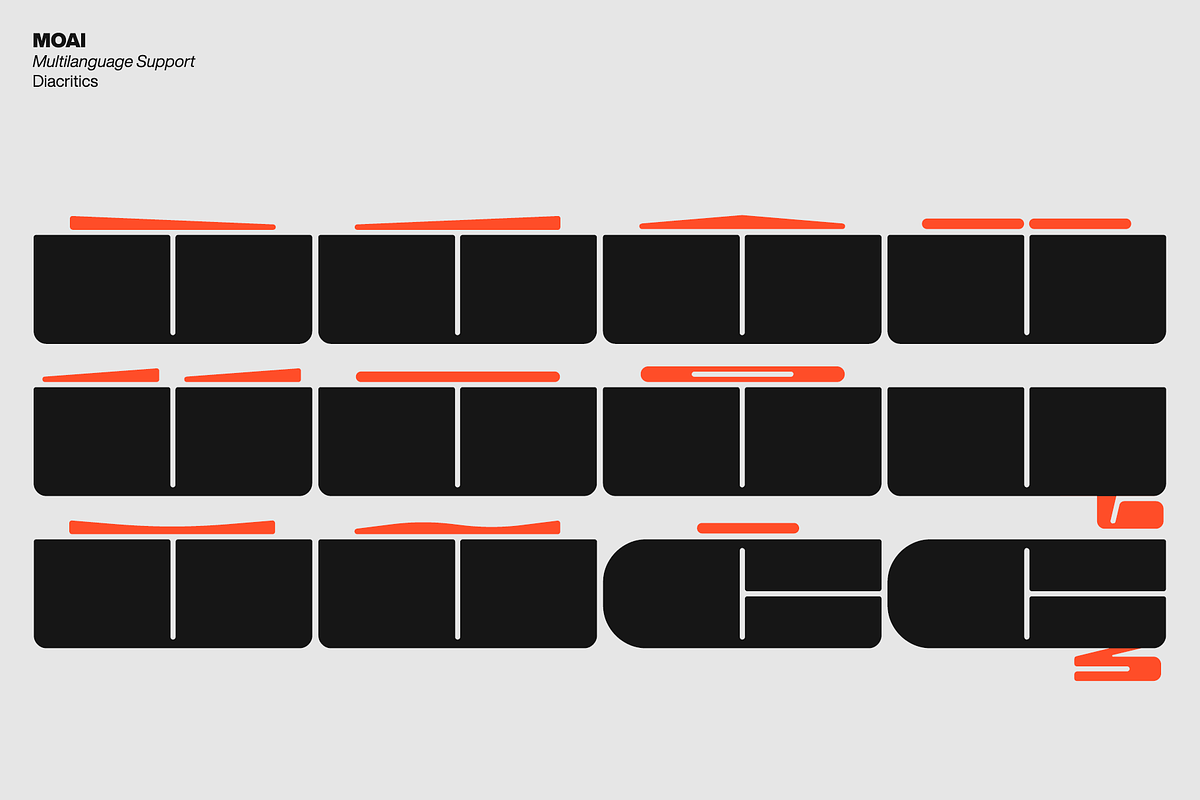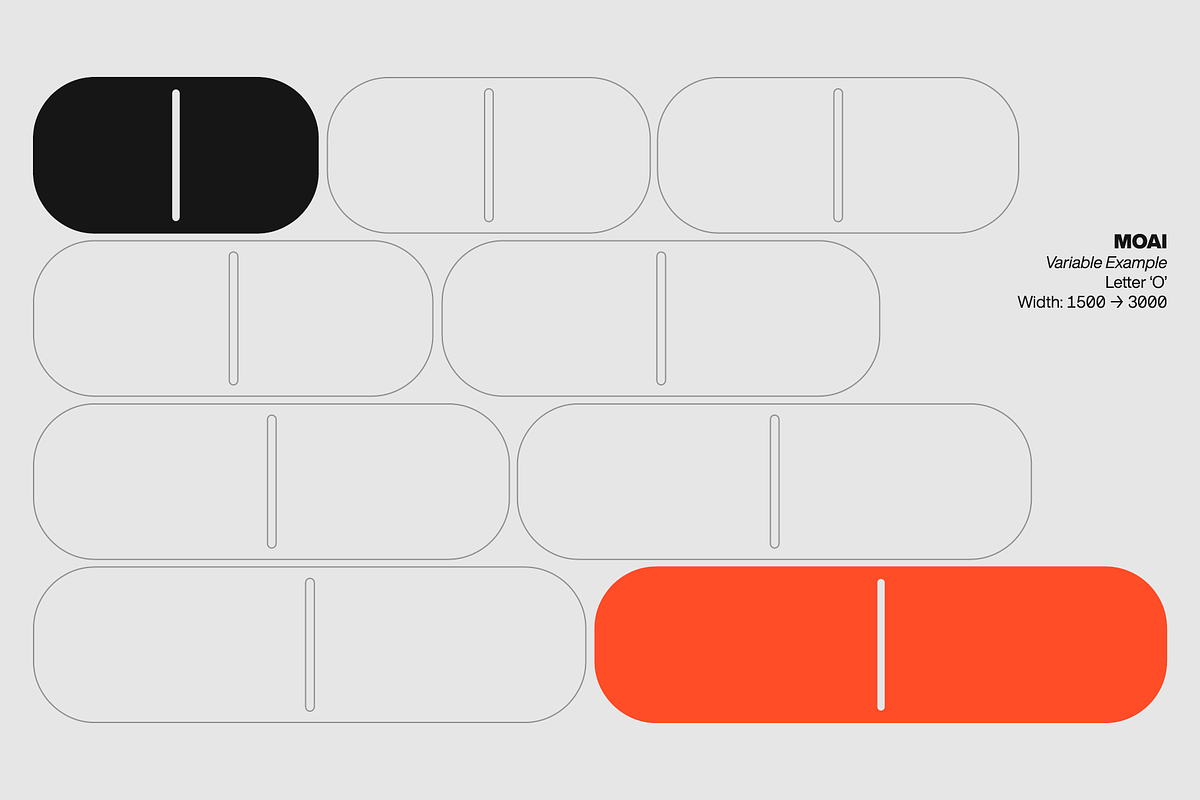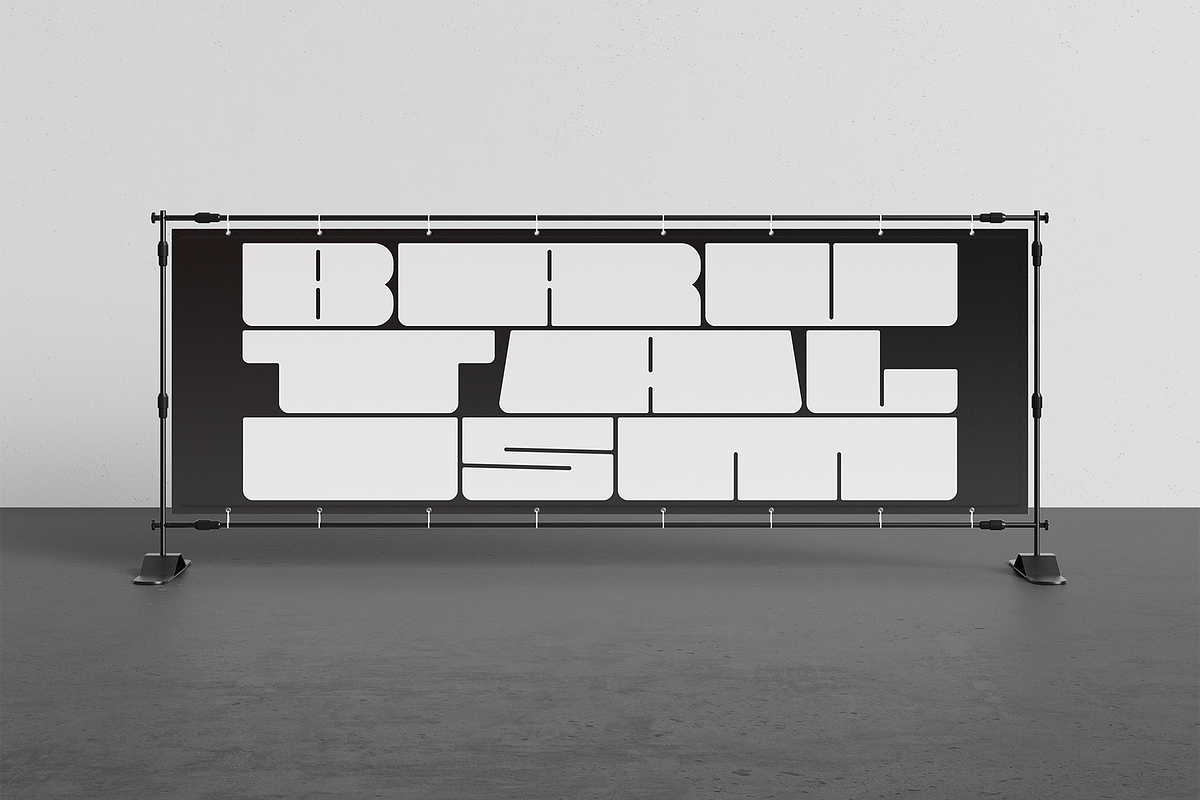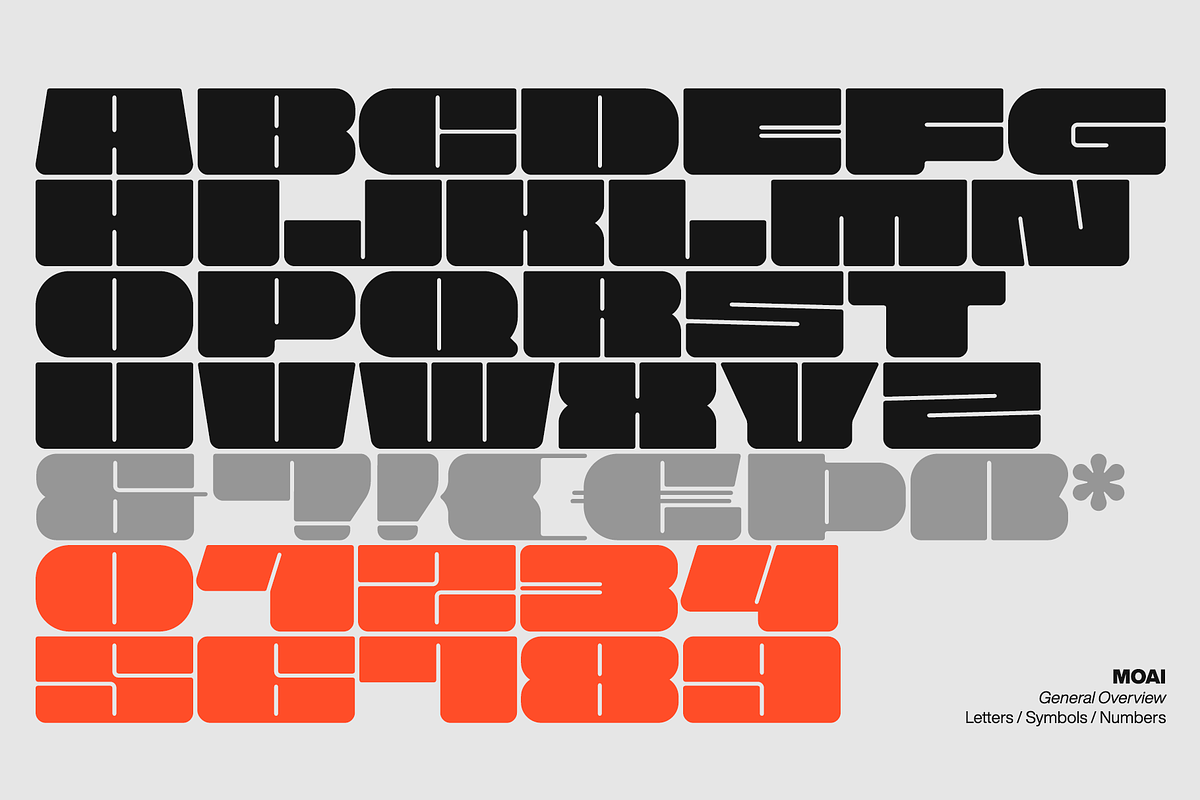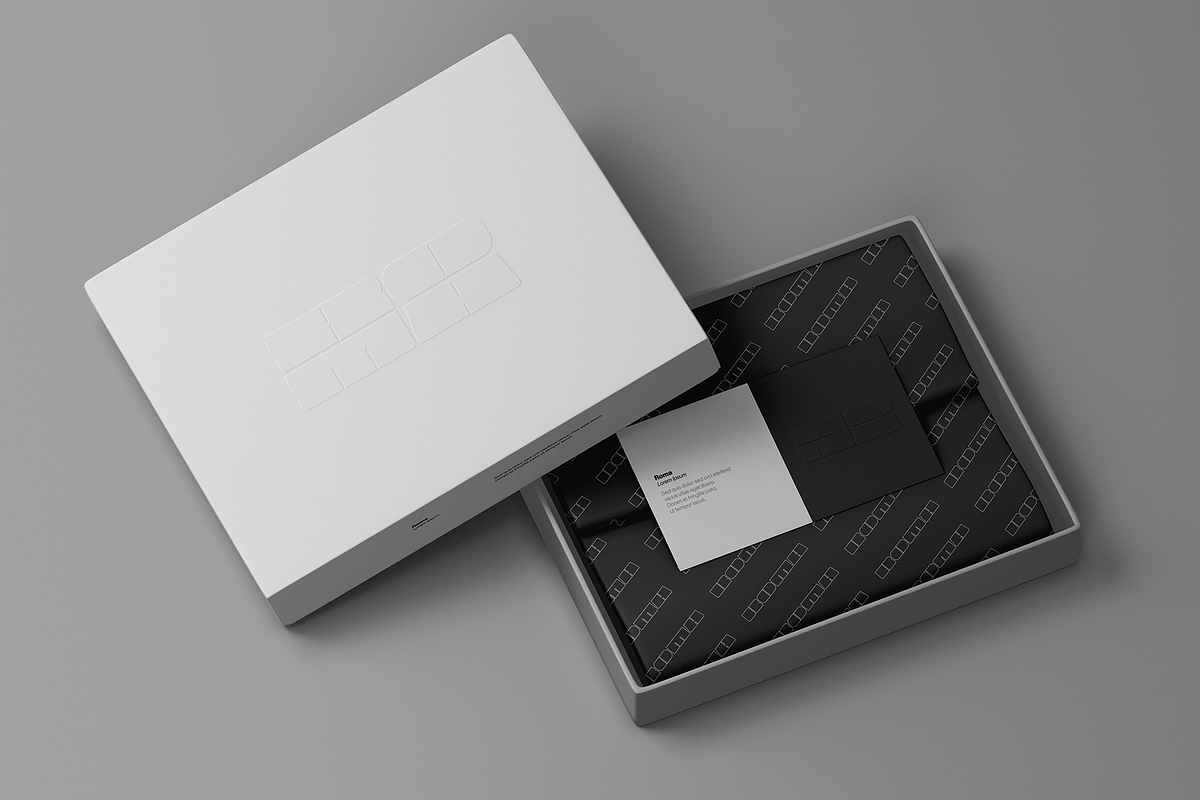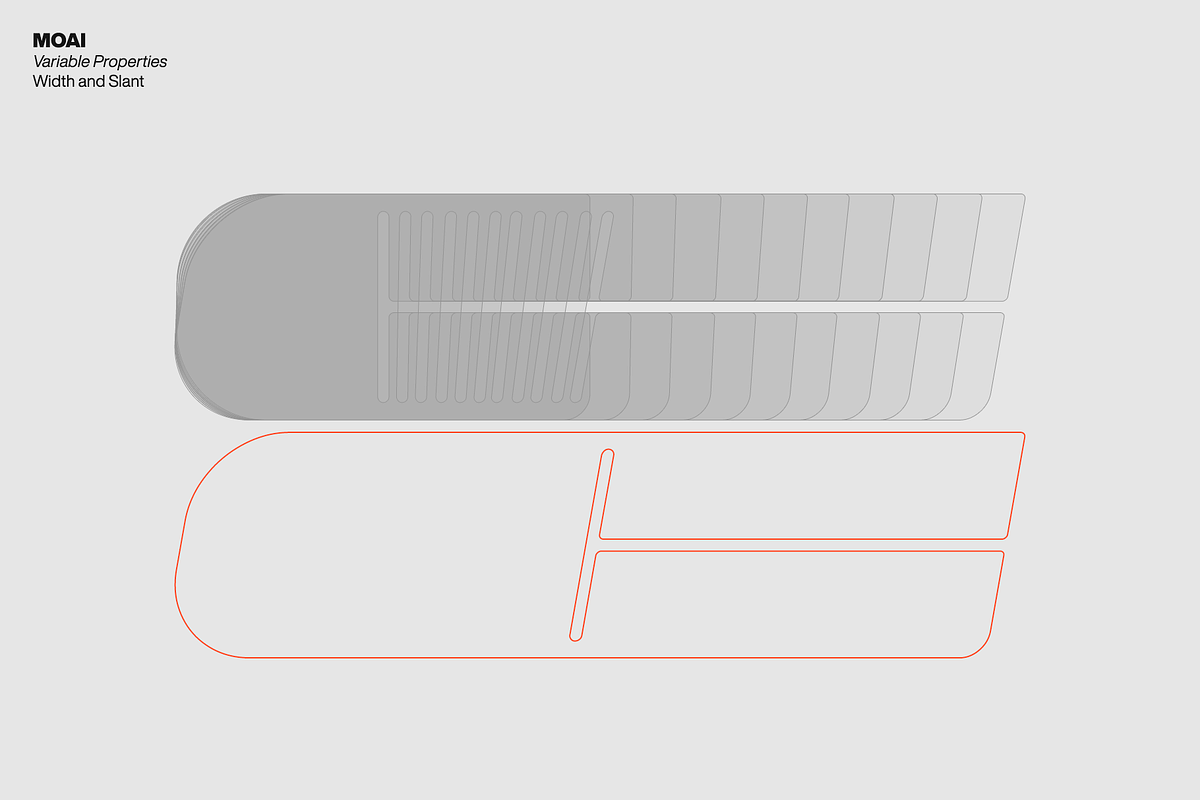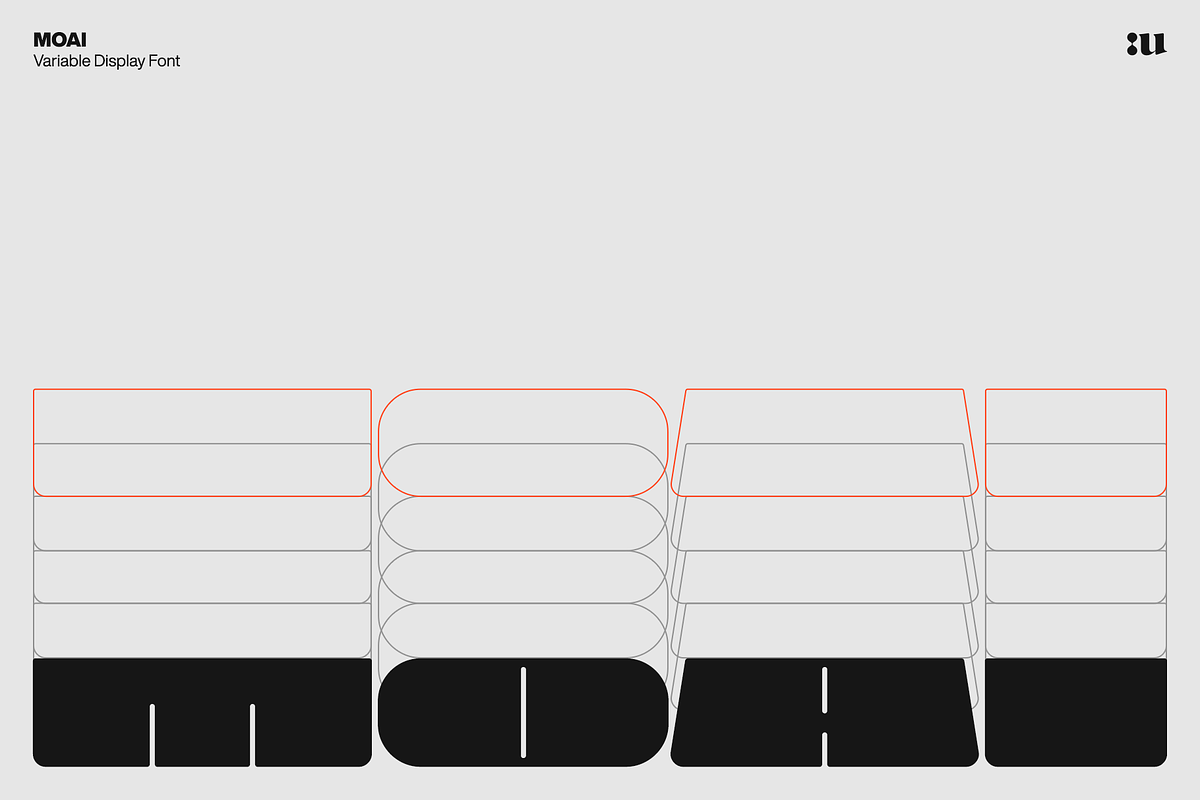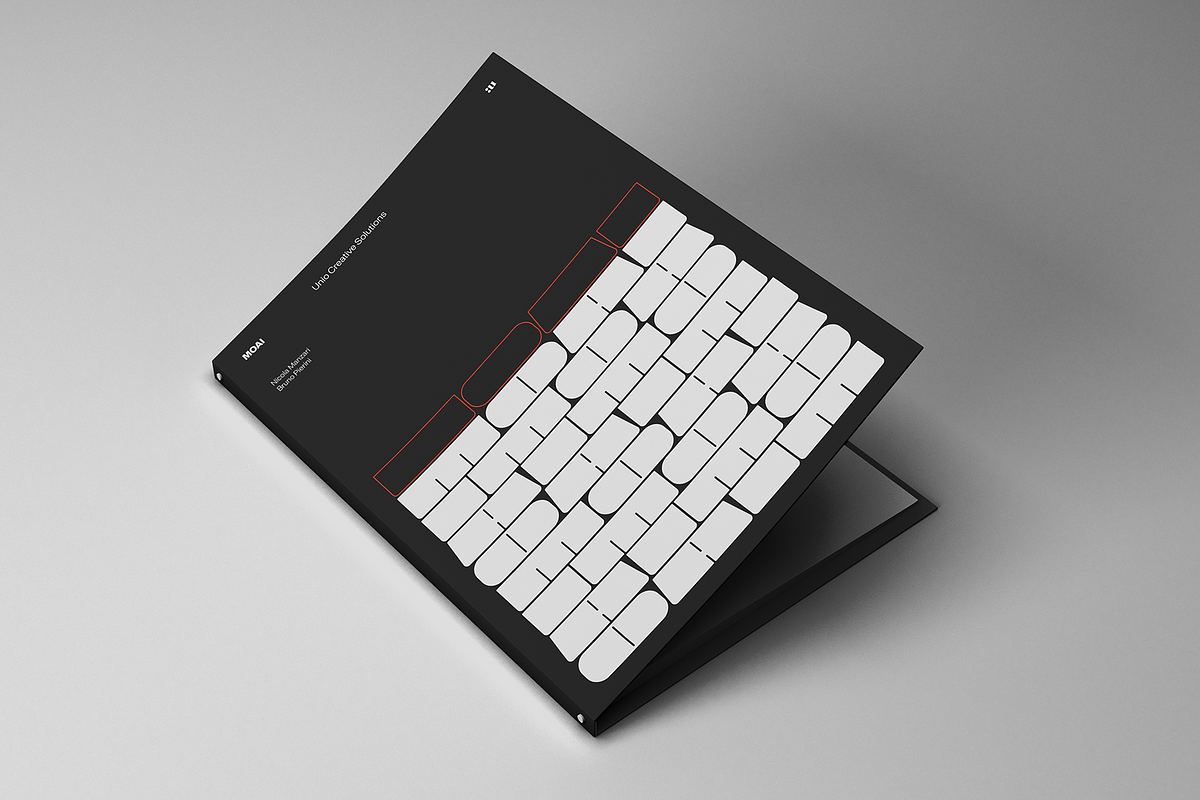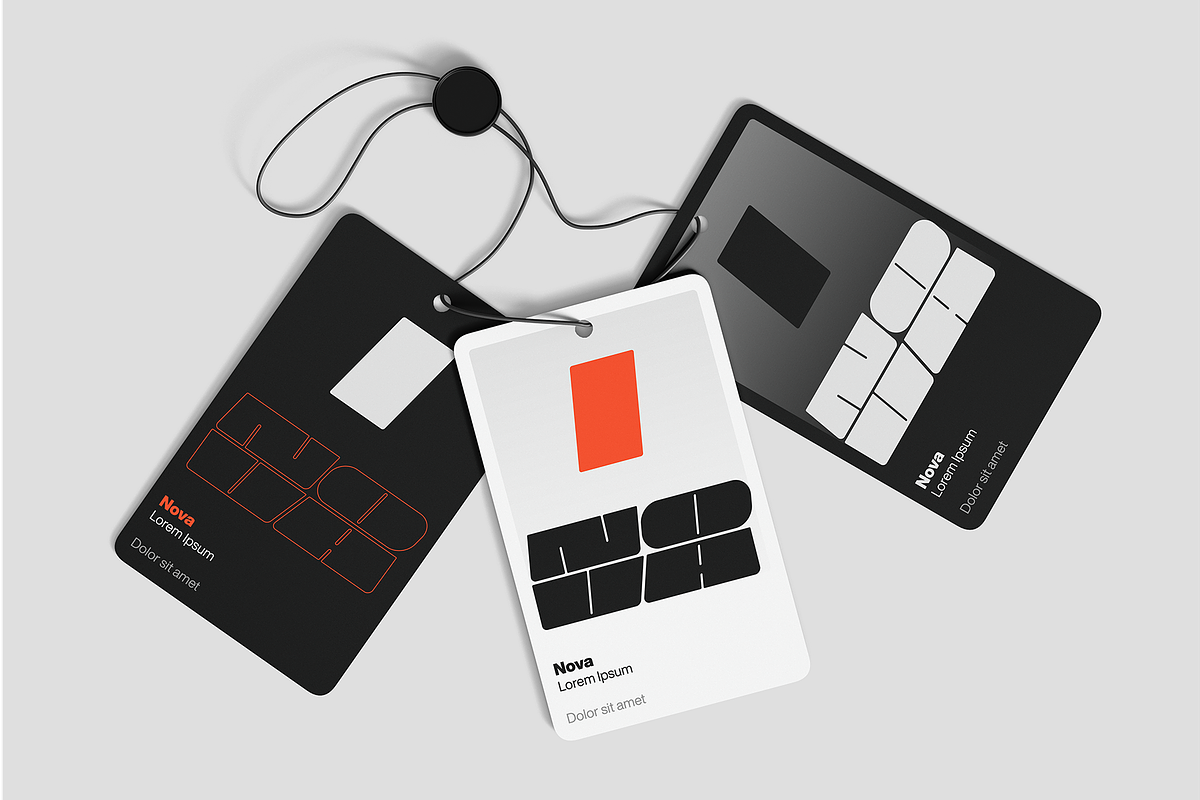
Moai Variable
A neo-brutalist variable typeface conceived with flexible proportions and a singular heavy weight, including the oblique. Useful for any quirky display uses.
Designed with extra-wide contrasting shapes, as a result of an extreme simplification of traditional typographic letterforms, “Moai” has a variable width that adapts to your needs, pushing for maximum readability.
It's perfect for logos, headlines, posters, art projects, social media, visual identity, corporate image, film posters, music cover art, and books.
- Multi-language support (Central, Eastern, Western European languages)